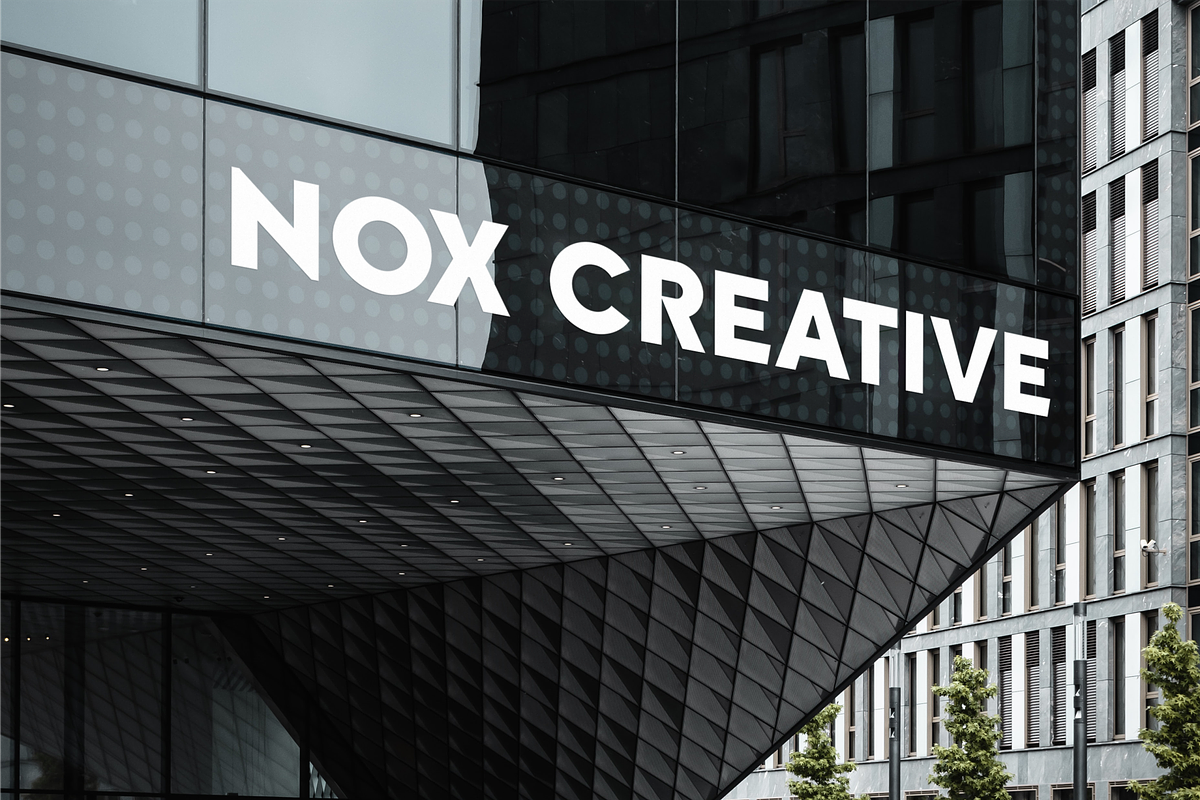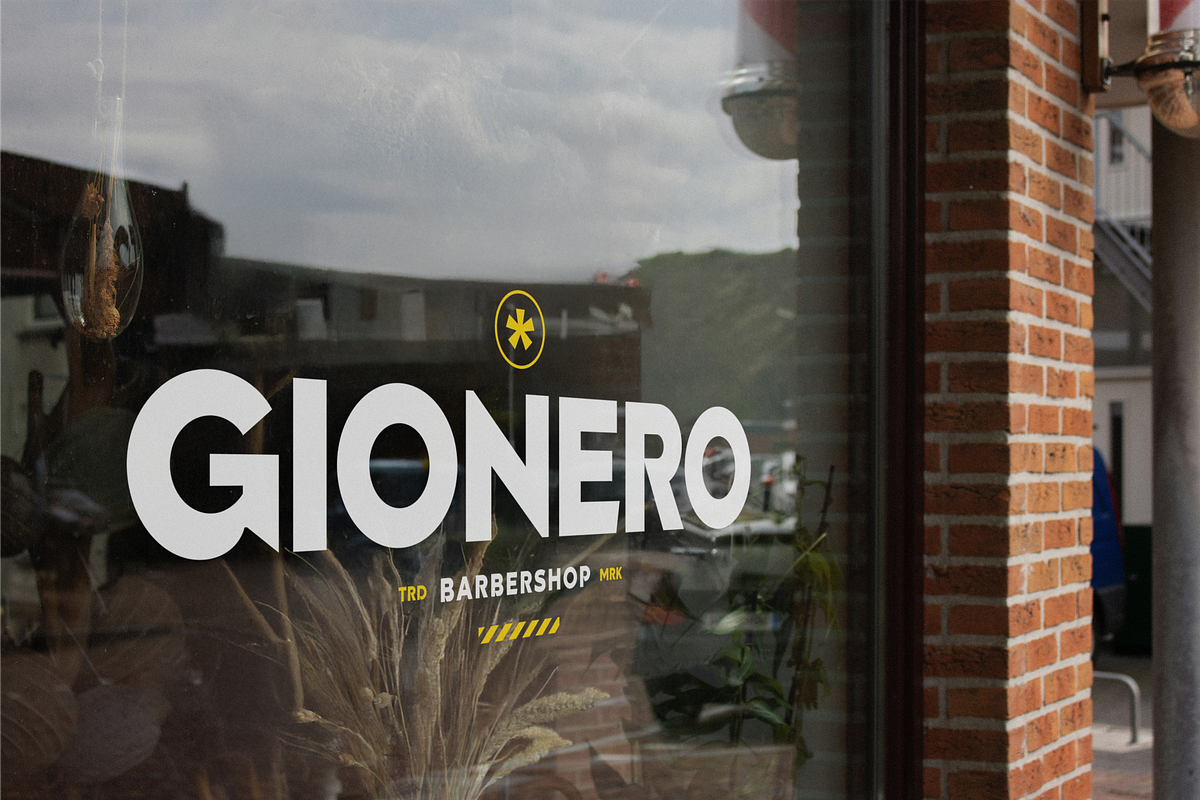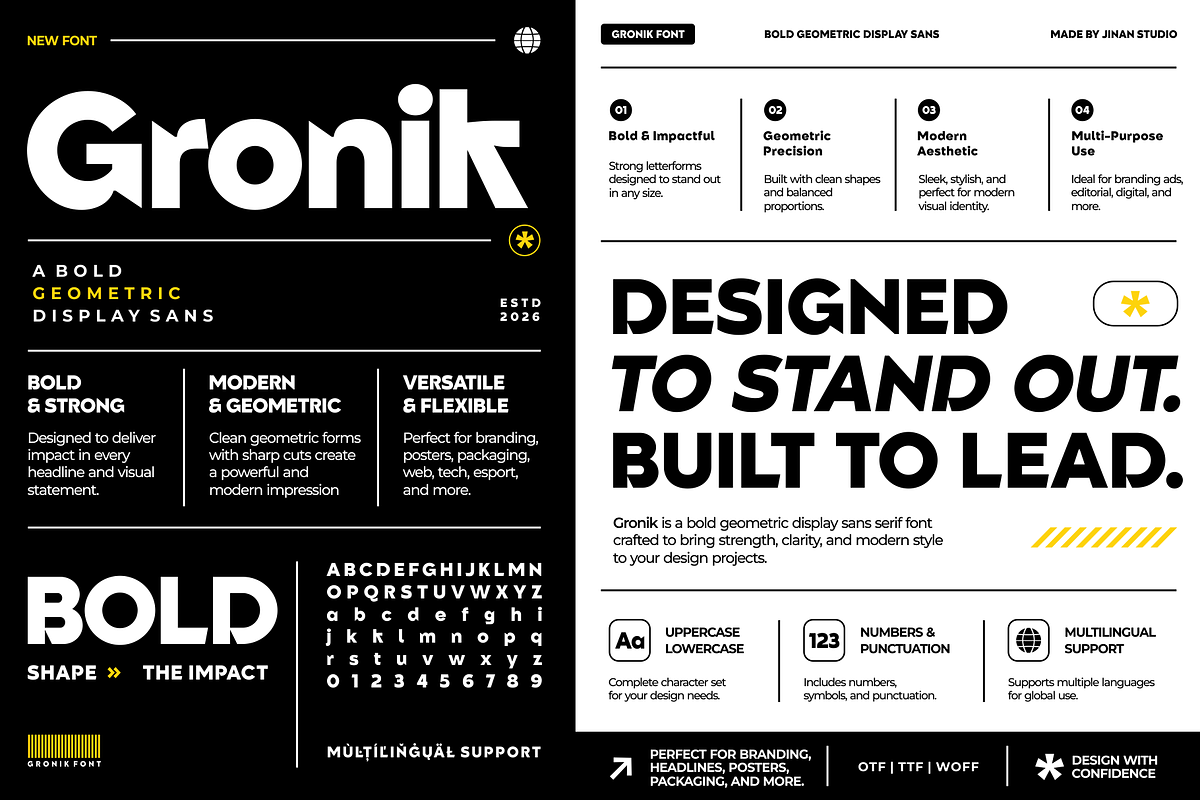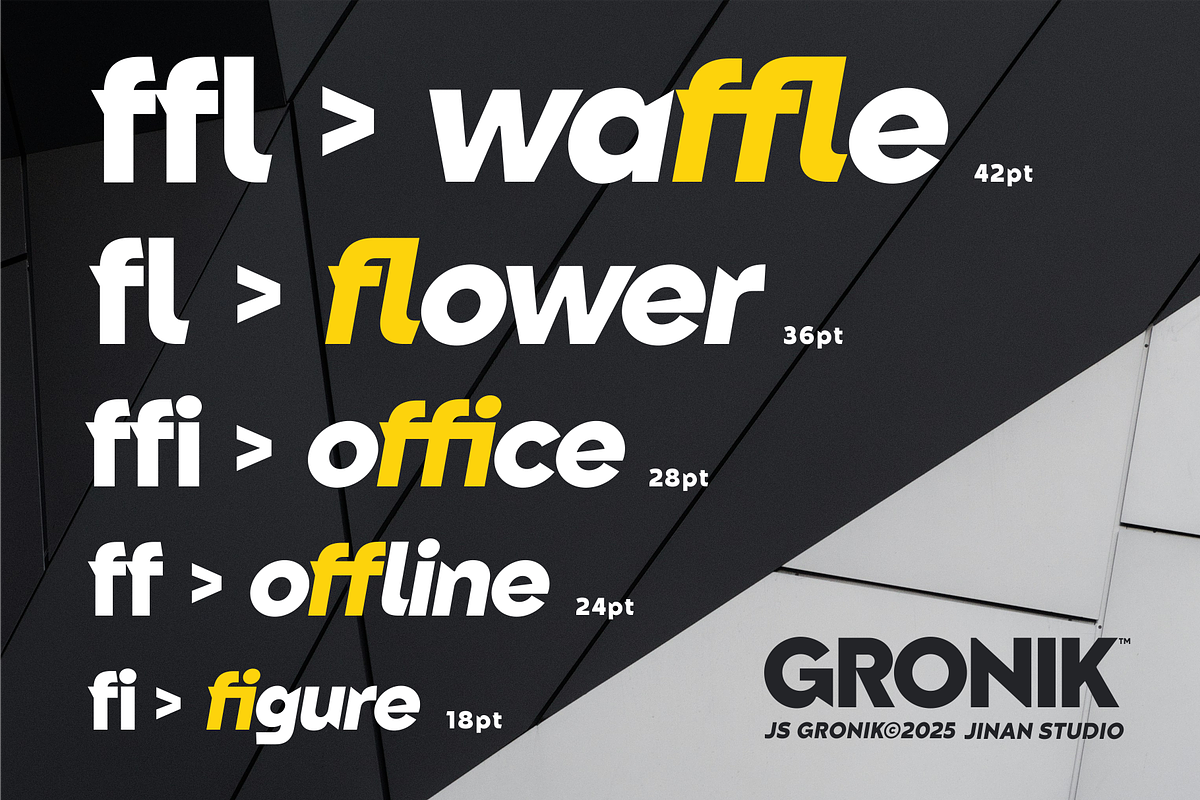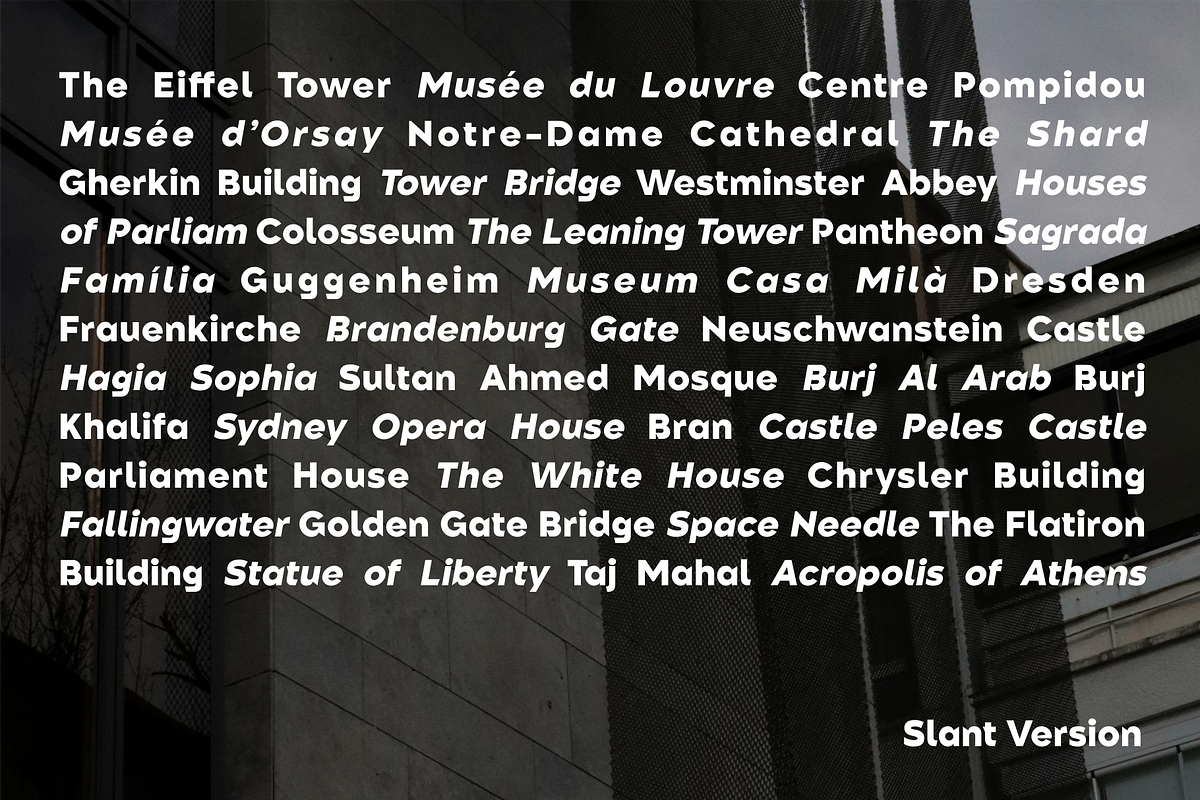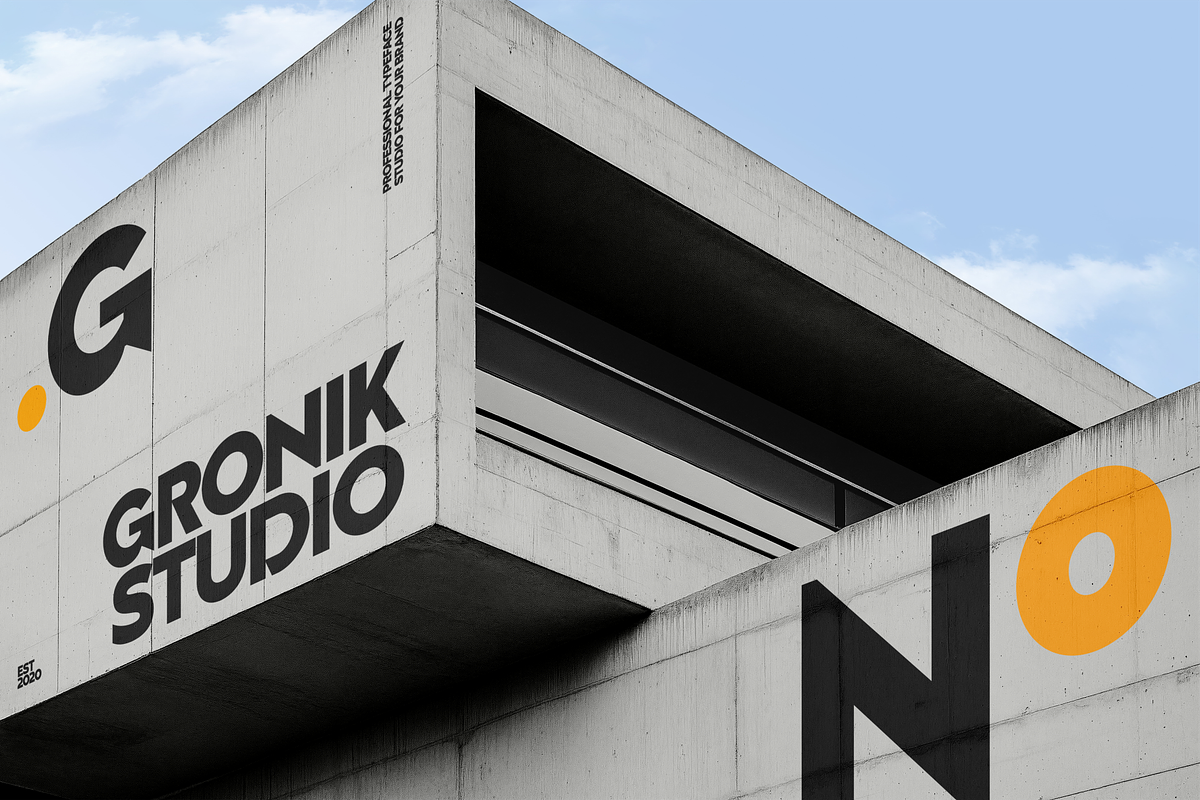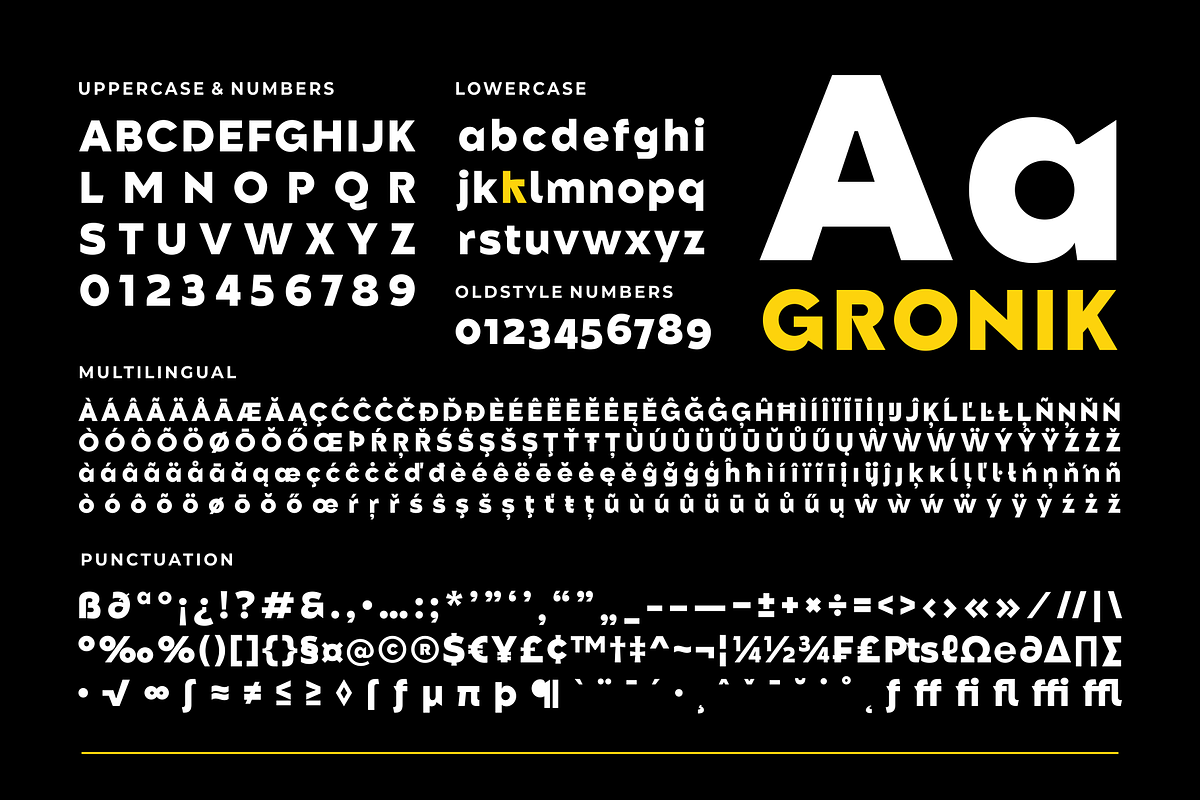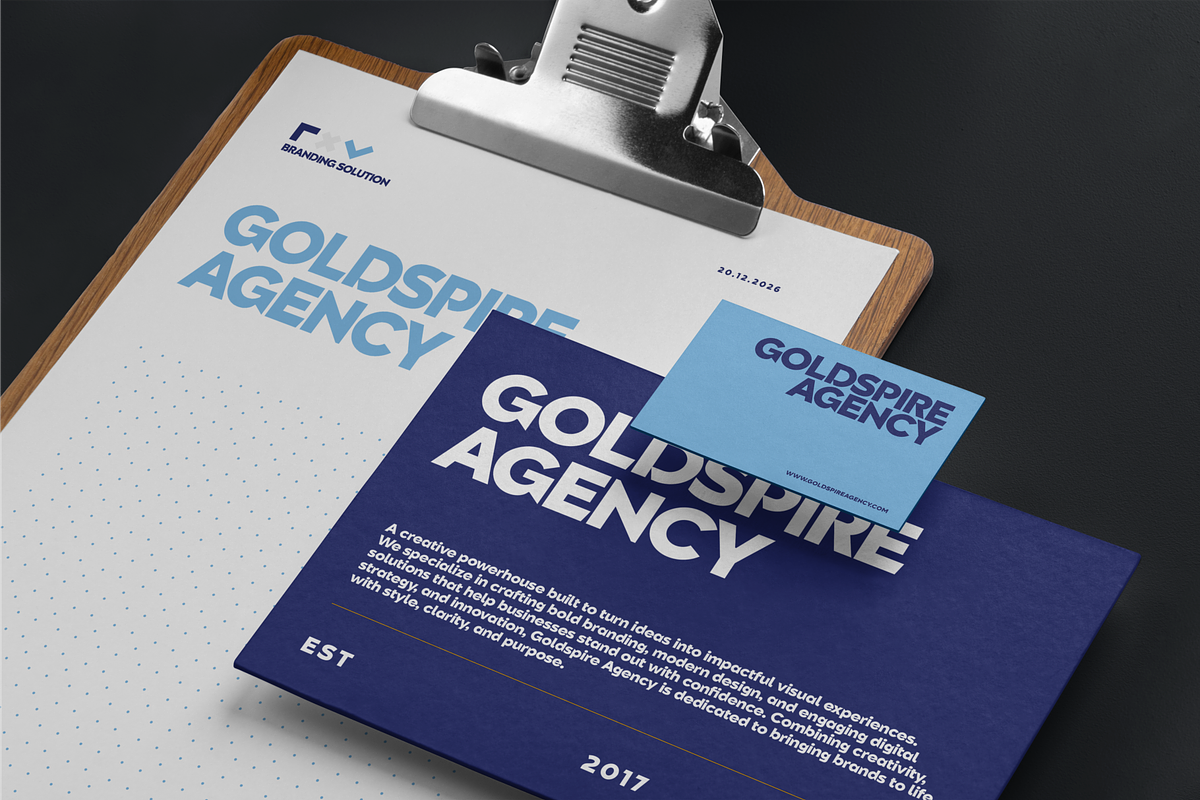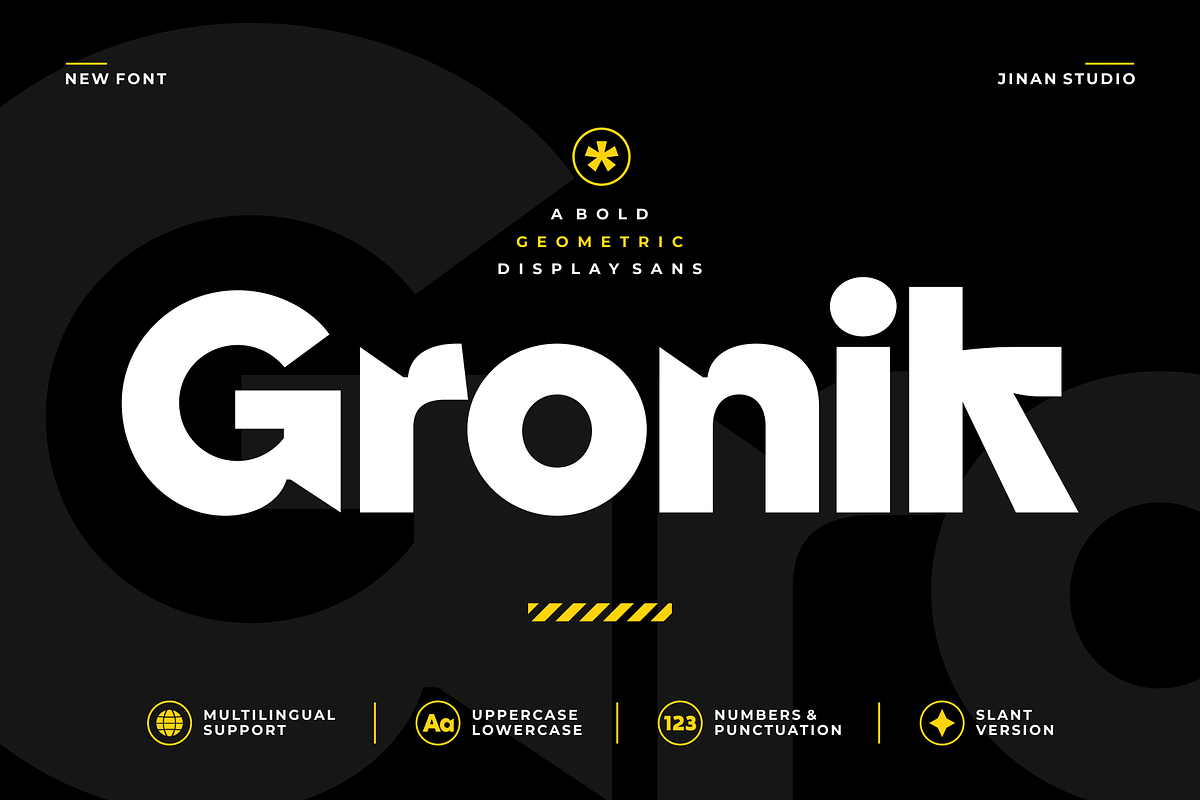
Gronik - Geometric Display Sans
Gronik is a bold geometric display sans serif built for striking and modern typography. Combining solid shapes, smooth curves, and a confident contemporary style, this font brings a strong visual rhythm to any design project. Perfect for logos, headlines, posters, digital graphics, packaging, gaming themes, music covers, and modern editorial layouts.
Designed with a balanced geometric structure, Gronik delivers a clean and powerful appearance while maintaining a creative and energetic character. Its versatile design makes it suitable for both futuristic visuals and playful compositions. Gronik gives designers the flexibility to create bold and memorable visual identities.
- A set of uppercase and lowercase glyphs
- Number, symbol, and punctuation
- Slant Version